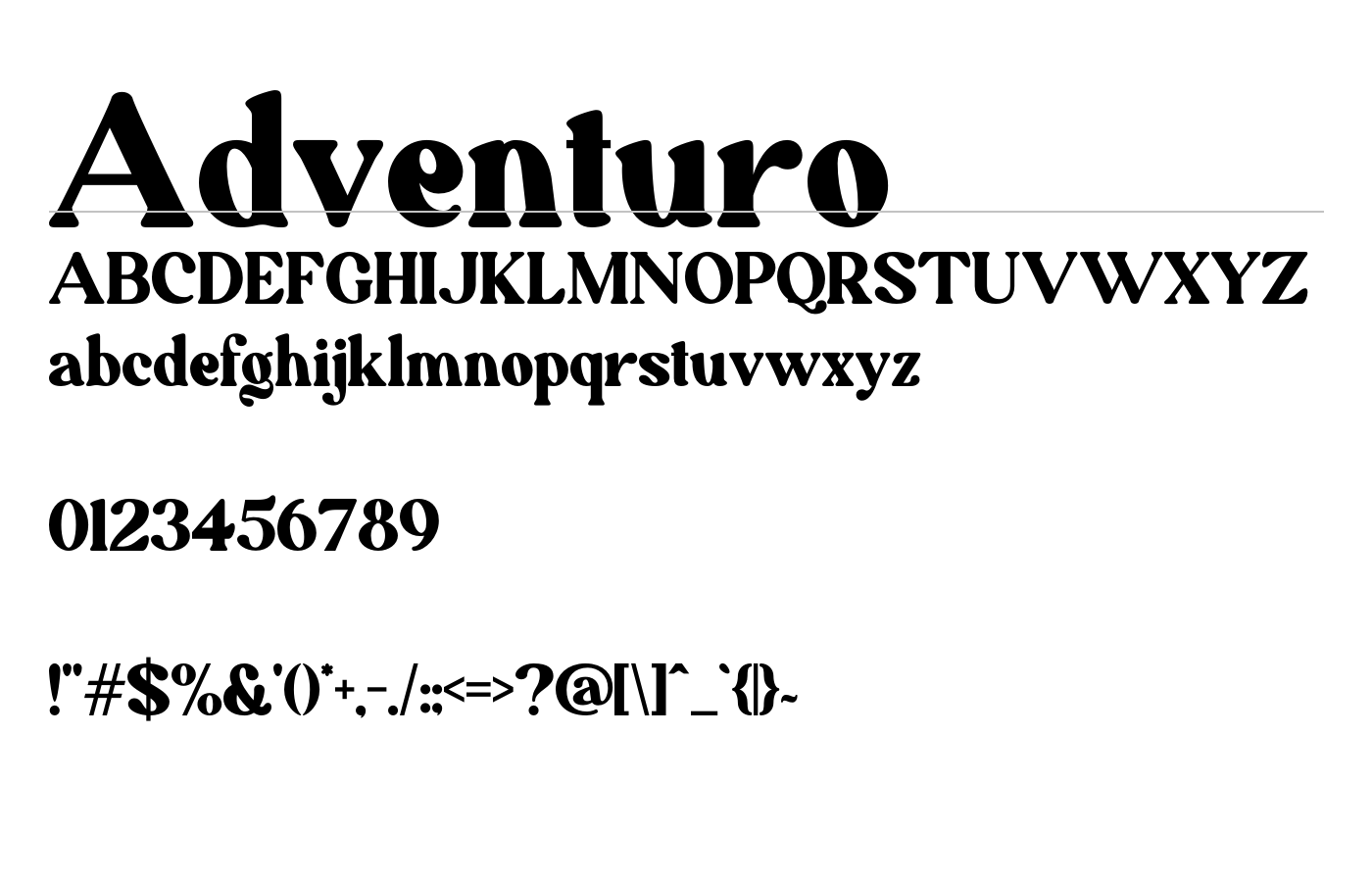
Adventuro is a bold serif font with a strong personality, featuring bracketed serifs and moderate stroke contrast that convey a vintage yet sturdy feel. Its slightly condensed letterforms and distinctive details like the curled tail on the 'Q' and double-story 'g' give it a playful yet refined character, making it ideal for logos, headlines, and packaging that seek to blend tradition with a touch of adventure. This font works well in projects that require a mix of elegance and boldness, especially where a classic, trustworthy impression is desired.
Adventuro Font
About Adventuro Font